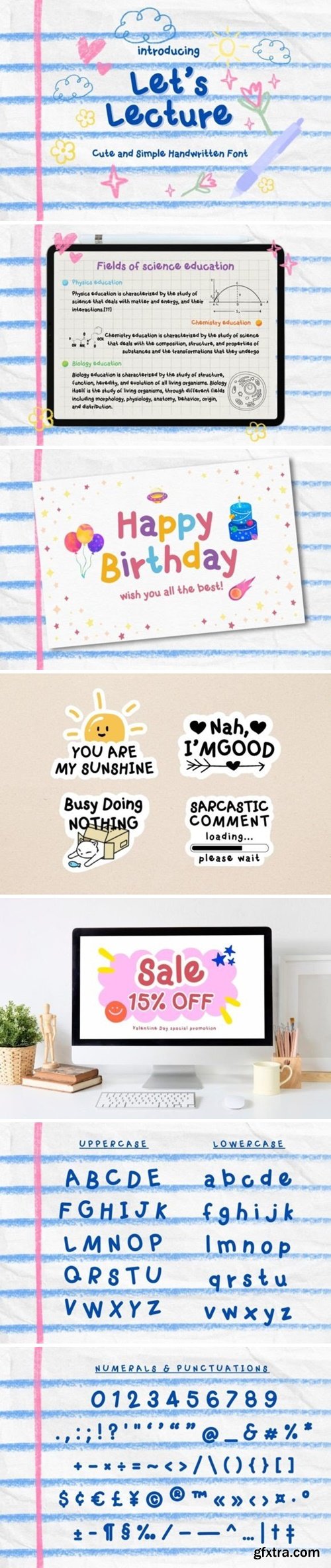
Let's Lecture Font
Introducing “Let’s Lecture,” a cute and playful font designed for educational materials. This simple and easy-to-read font is perfect for study notes, digital planners, branding, quotes, greeting cards, logos, business cards, and product packaging. Its trendy handwritten style and modern typography make it suitable for web design, app design, social media, and advertising. Add a touch of creativity and approachability to your projects with “Let’s Lecture” and make learning materials, school supplies, and educational resources more engaging.